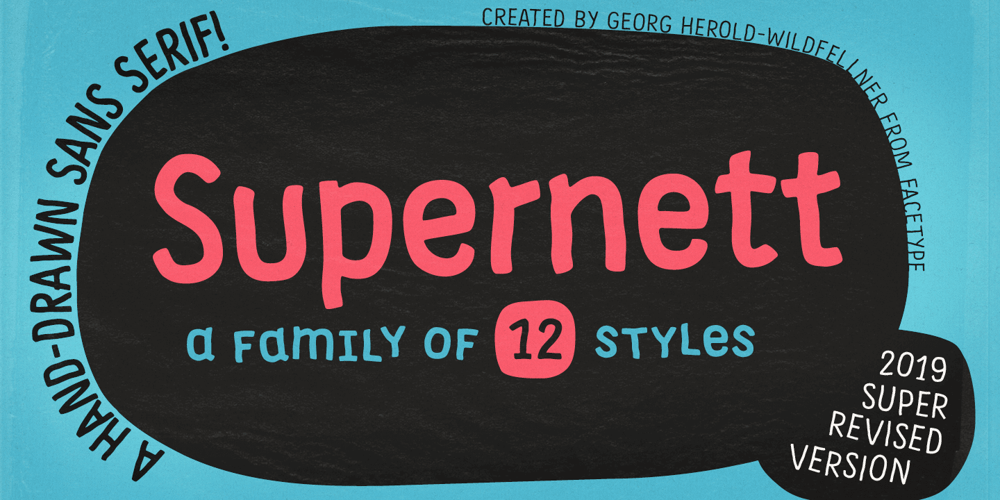
Supernett Font Family was designed by Georg Herold-Wildfellner and published by FaceType. Supernett contains 12 styles and family package options. Supernett was originally created in 2013. Now we decided to upgrade it: more styles, more glyphs, more features, more everything. Have fun with Supernett 2019!Supernett 2019 super revised versionSupernett is a versatile handmade text- and display-family and is perfect for space-saving headlines. All letters and numerics are available in three variants which alternate randomly with OpenType Contextual Alternates activated. One of Supernetts key features is Wiggling & jumping letters: letters jump around the baseline or tilt forward and backwards without a plan. Combine this with OpenType Contextual Alternates and let Supernett look truly hand-drawn with a maximum effect when applied to big typesetting. Further features include small caps, glyph alternates, case-sensitive forms, fractions, symbols and many more. Supernett is a hand-drawn / handmade / handdrawn Sans-Serif font-family.Supernett is available in three weights, two widths, Uprights and Italics. The handmade family is tailored for large font sizes but also impresses with seamless legibility in small type sizes. Due to its display origin and slightly condensed appearance, make sure to increase the spacing a little when used in text setting. The extensive character set supports 209 Central and Eastern European as well as Western European languages (for details, please see below).Supernett Font and Feature GuideDownload it | View it onlineSupernett OpenType FeaturesAlternating LettersLetters and numerics are available in three variants which alternate randomly→ OpenType Contextual AlternatesSmall CapsSupernetts Small Caps mixes Upper- and Lowercase letter forms. Choose between »Small Caps« or »OpenType All Small Caps«. The latter replaces lower- AND uppercase letters, as well as the dotted i and activates punctuation to match the small caps’ height.Wiggling lettersAll glyphs tilt slightly and randomly forward and backwards→ OpenType Swashes (or OpenType Stylistic Set 06)Jumping lettersEach single glyph moves individually up or down→ OpenType Titling Alternates (or OpenType Stylistic Set 07)→ for a stronger effect, add OpenType Stylistic Set 08 (Jumping Baseline MORE)Case-Sensitive FormsThis feature shifts various punctuation marks to a position that works better with all caps typography.→ activated when an app’s all-caps styling is appliedSlashed ZeroMake clear what you’re talking about and work with a slashed zero→ OpenType Zero with a SlashFractionsFigures separated by a slash are substituted by proper fraction glyphs.A date however, written like 10/12/2019 will remain unchanged.→ OpenType FractionsAlternate Glyph Set 1→ OpenType Stylistic Set 01Alternate Glyph Set 2→ OpenType Stylistic Set 02Alternate Glyph Set 3The default glyph set. Activate it to disable Alternating Letters within OpenType Contextual Alternates.→ OpenType Stylistic Set 03Y AlternateChoose between two different styles of Y→ OpenType Stylistic Set 04Underlined Uppercase O & ordinals→ OpenType Stylistic Set 05→ activate OpenType Ordinals to substitute No. by №Uppercase I AlternateThere’s an alternate for the isolated ›I‹ (I love you)→ included in OpenType Contextual Alternates→ or activate OpenType Positional Forms: Automatic Form→ substitute every single ›I‹ with OpenType Stylistic Set 09Bullet AlternateChoose between two different styles of bullet (•)→ OpenType Stylistic Set 11Squares and CirclesType a – z and out pop squares and circles. All symbols are PUA-encoded for easy copy and paste between different applications.→ OpenType Stylistic Set 10→ or open your apps’ glyphs panel and double-click the desired symbolsSupernett is an organic and decorative hand-drawn / handmade Sans Serif display-family for packaging, posters, book-covers, kids- (children-), food- and logo-design and will best stand out in huge grades. Its handmade / hand-drawn origin is subtle yet visible.Supernett supports 209 languagesAbenaki, Afaan Oromo, Afar, Afrikaans, Albanian, Alsatian, Amis, Anuta, Aragonese, Aranese, Aromanian, Arrernte, Arvanitic, Asturian, Atayal, Aymara, Bashkir, Basque, Belarusian, Bemba, Bikol, Bislama, Bosnian, Breton, Cape Verdean, Catalan, Cebuano, Chamorro, Chavacano, Chichewa, Chickasaw, Cimbrian, Cofan, Corsican, Creek, Crimean Tatar, Croatian, Czech, Danish, Dawan, Delaware, Dholuo, Drehu, Dutch, English, Esperanto, Estonian, Faroese, Fijian, Filipino, Finnish, Folkspraak, French, Frisian, Friulian, Gagauz, Galician, Ganda, Genoese, German, Gikuyu, Gooniyandi, Greenlandic, Guadeloupean, Gwichin, Haitian Creole, Han, Hawaiian, Hiligaynon, Hopi, Hotcak, Hungarian, Icelandic, Ido, Ilocano, Indonesian, Interglossa, Interlingua, Irish, Istroromanian, Italian, Jamaican, Javanese, Jerriais, Kala Lagaw Ya, Kapampangan, Kaqchikel, Karakalpak, Karelian, Kashubian, Kikongo, Kinyarwanda, Kiribati, Kirundi, Klingon, Ladin, Latin, Latino Sine, La